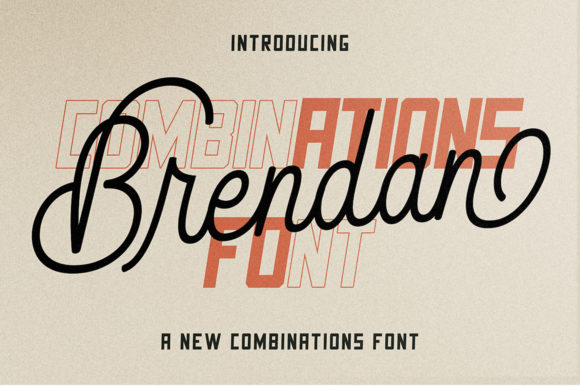
Introducing Brendan Duo Font: A Beautiful and Versatile Duo Font for Your Design Needs
Are you looking for a font that can elevate your design projects to the next level? Look no further than the Brendan Duo Font. This stunning duo font is designed to fit a wide variety of design ideas, making it a versatile and valuable addition to your font collection.
What is Brendan Duo Font?
Brendan Duo Font is a beautifully crafted font that features a unique and elegant design. With its varying baseline, smooth lines, gorgeous glyphs, and stunning alternates, this font is sure to impress. Whether you’re working on a branding project, a website design, or a print project, Brendan Duo Font is the perfect choice.
Key Features of Brendan Duo Font
- Varying Baseline: The font features a unique varying baseline, which gives it a distinctive and elegant look.
- Smooth Lines: The lines in Brendan Duo Font are smooth and flowing, making it perfect for designs that require a high level of sophistication.
- Gorgeous Glyphs: The font comes with a wide range of gorgeous glyphs, including alternates, ligatures, and swashes.
- Stunning Alternates: The font features stunning alternates, which allow you to add variety and creativity to your design.
Why Choose Brendan Duo Font?
So why should you choose Brendan Duo Font for your design projects? Here are just a few reasons:
- Versatility: The font is designed to fit a wide variety of design ideas, making it a versatile and valuable addition to your font collection.
- Elegance: The font’s unique and elegant design makes it perfect for designs that require a high level of sophistication.
- High-Quality Design: The font is designed to high standards, ensuring that it will look great in any design.
Tips and Tricks for Getting the Most Out of Brendan Duo Font
Here are some tips and tricks for getting the most out of Brendan Duo Font:
- Use the Font’s Alternates: Use the font’s alternates to add variety and creativity to your design.
- Combine with Other Fonts: Combine Brendan Duo Font with other fonts to create a unique and interesting design.
In conclusion, Brendan Duo Font is a beautiful and versatile duo font that is perfect for a wide range of design projects. With its PUA encoding, gorgeous glyphs, and stunning alternates, this font is sure to impress. Whether you’re a designer, a developer, or just someone who loves typography, Brendan Duo Font is a great addition to your font collection.